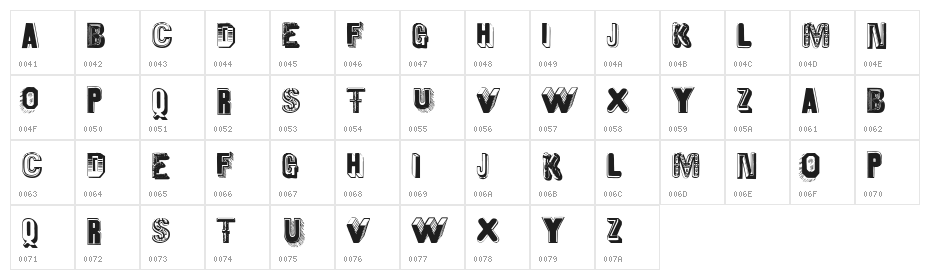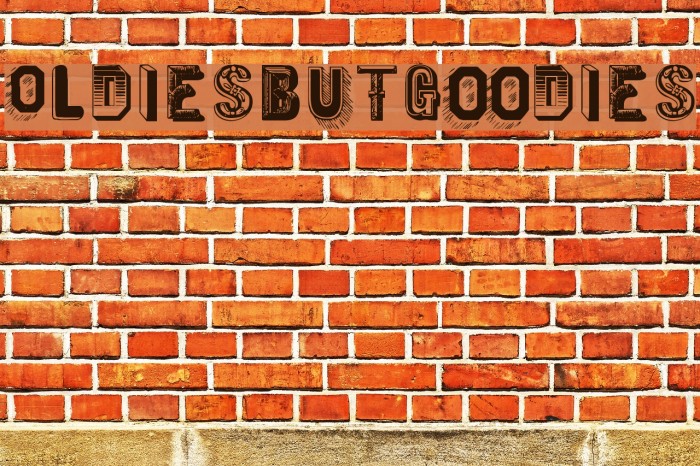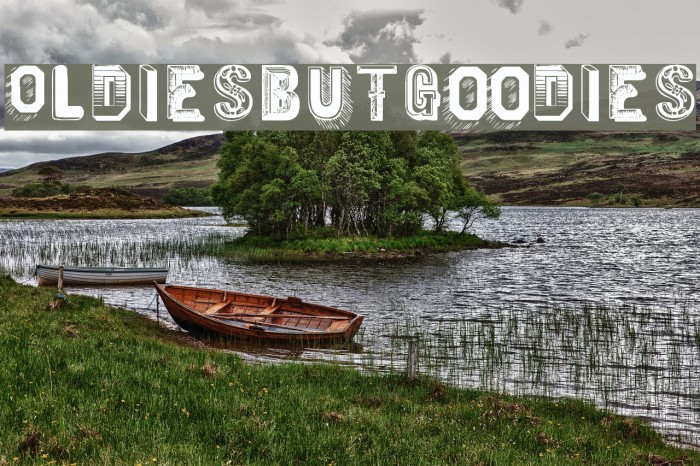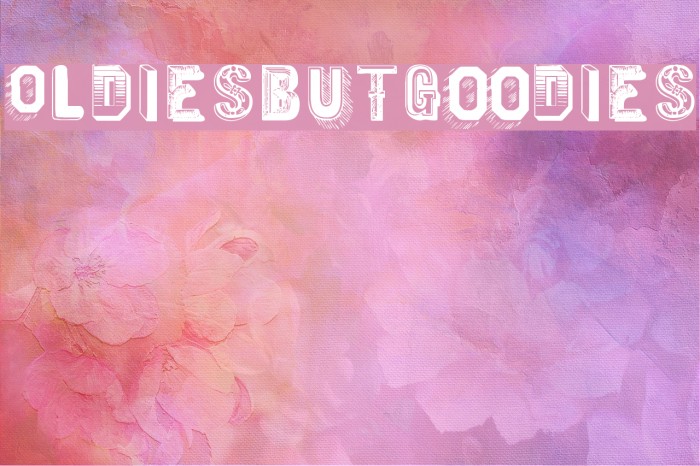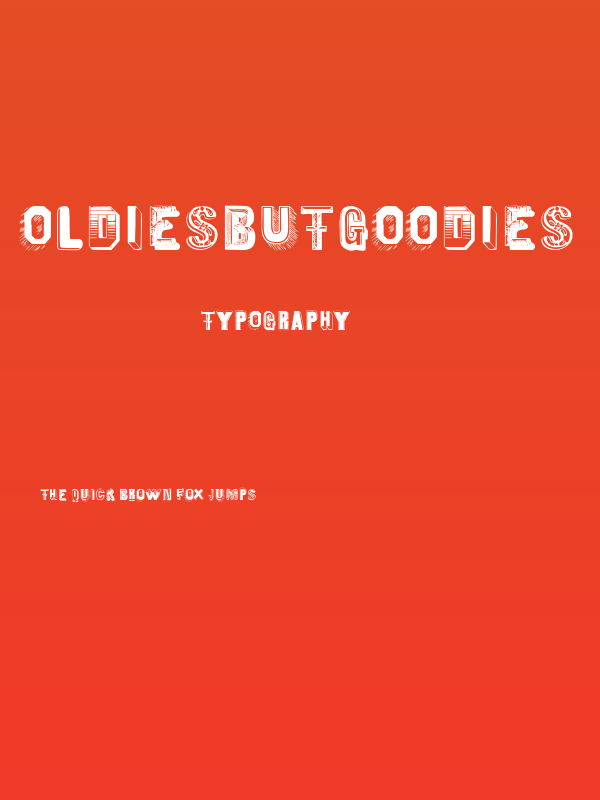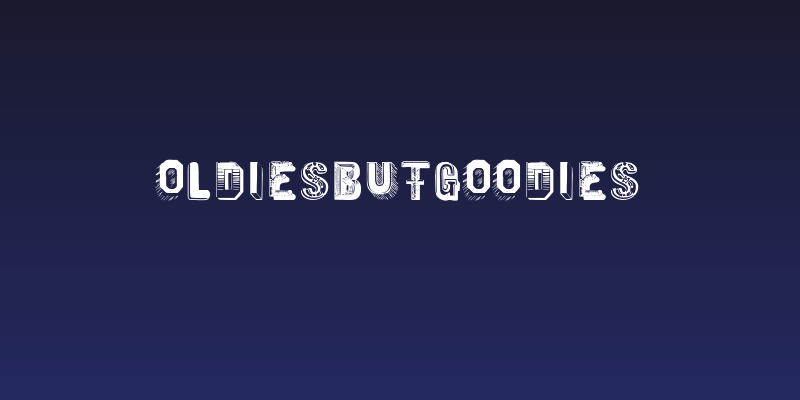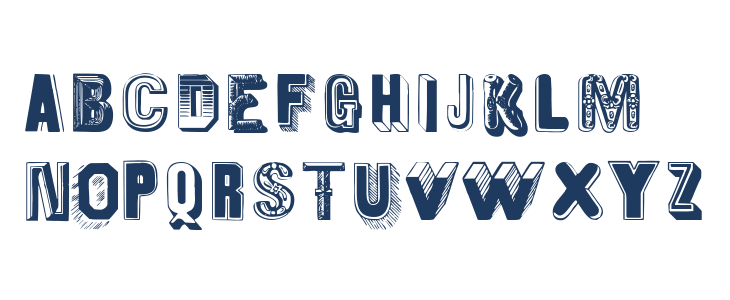
OldiesButGoodies Font
OldiesButGoodies Description
This font is a decorative and eclectic collection of styles, each letter featuring a unique design that ranges from bold and solid to intricately patterned. The uppercase letters showcase a variety of textures, including stripes, dots, and shadow effects, giving each character a distinct personality. The font is reminiscent of vintage signage and poster art, with a playful and artistic flair. It captures a sense of nostalgia and creativity, making it stand out in any design project. The diverse styles within the font allow for dynamic and eye-catching compositions.
| Proposed Projects | Ideal for retro-themed posters, creative branding, vintage advertisements, and artistic projects. |